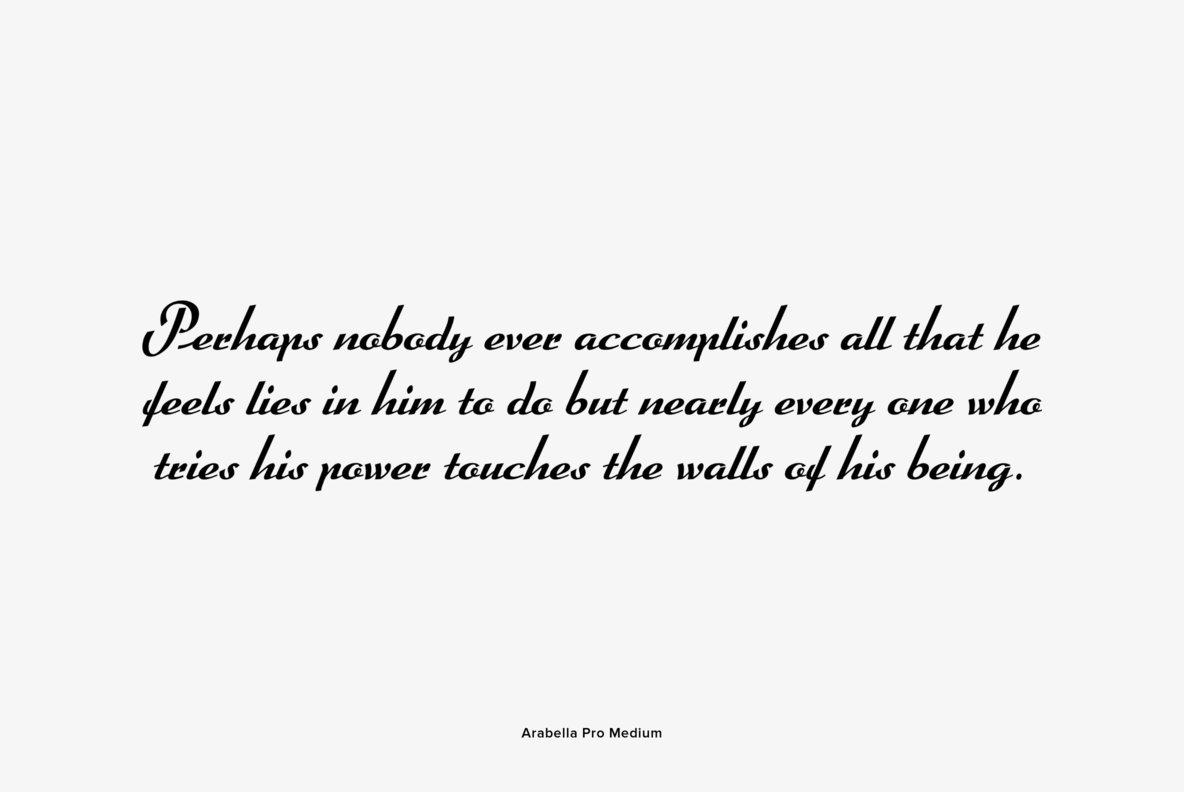
Arabella Pro
Foundry: profonts
Originally, Arabella Pro was designed by Arnold Drescher around 1936/1939. Drescher created this wonderful script for former Germany typefoundry Joh. Wagner. The typeface has been redesigned, digitized, completed and expanded as OpenType Pro in the profonts studio.
Arabella Pro comes in two versions, light and medium, each with a large selection of manually designed ligatures and alternates, i.e. swashed upper case to make this naturally flowing script design a perfect font for OTF-savvy applications like e.g. InDesign or Quark Xpress 7.
Arabella Pro light and medium are perfect partners for any sans serif, especially for Futura. It is perfectly suited for anything in the area of headlines, posters, invitations etc. However, since it is very well legible, it can also be used individually for small text blocks. The typeface has been redesigned, digitized, completed and expanded as OpenType Pro for the profonts studio by Ralph M. Unger.
Arabella Pro comes in two versions, light and medium, each with a large selection of manually designed ligatures and alternates, i.e. swashed upper case to make this naturally flowing script design a perfect font for OTF-savvy applications like e.g. InDesign or Quark Xpress 7.
Arabella Pro light and medium are perfect partners for any sans serif, especially for Futura. It is perfectly suited for anything in the area of headlines, posters, invitations etc. However, since it is very well legible, it can also be used individually for small text blocks. The typeface has been redesigned, digitized, completed and expanded as OpenType Pro for the profonts studio by Ralph M. Unger.